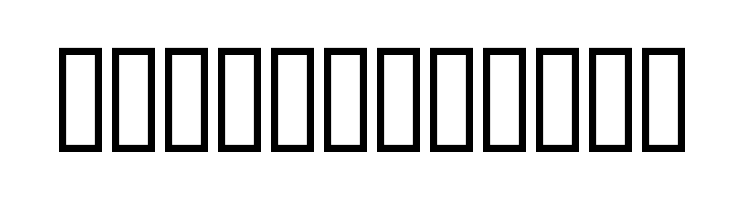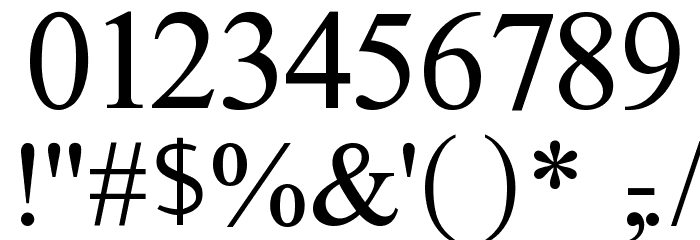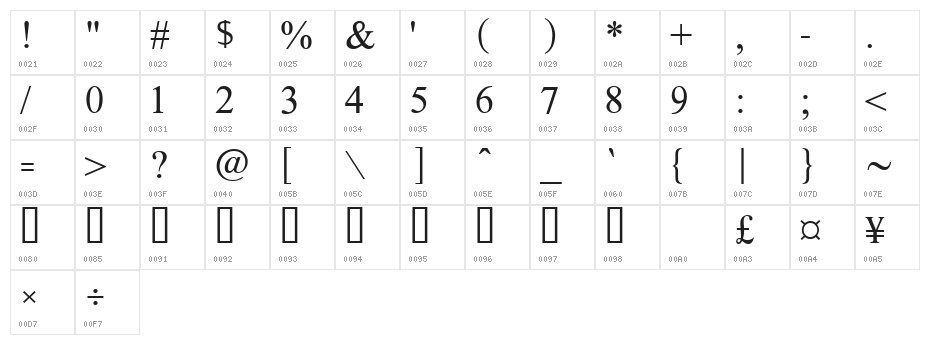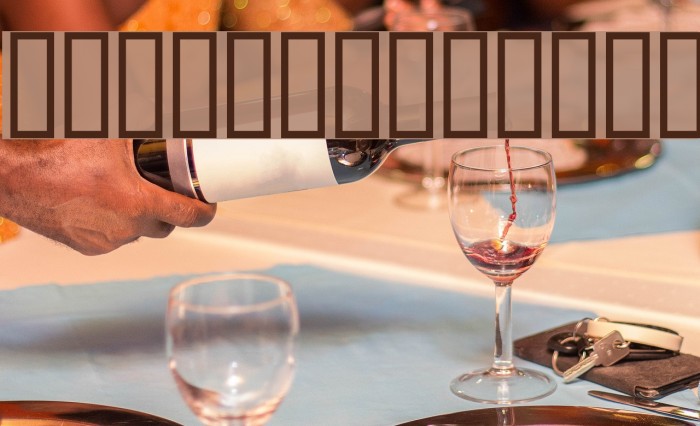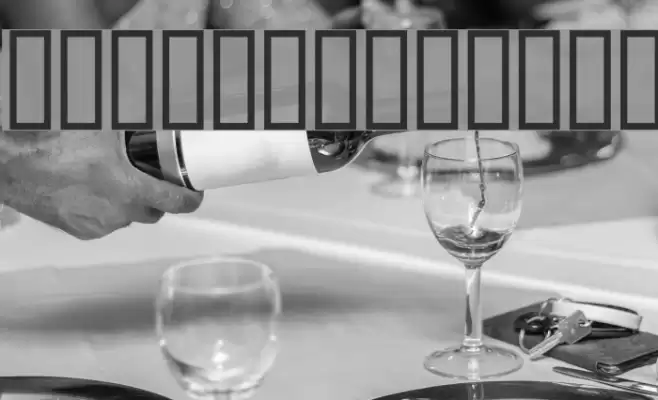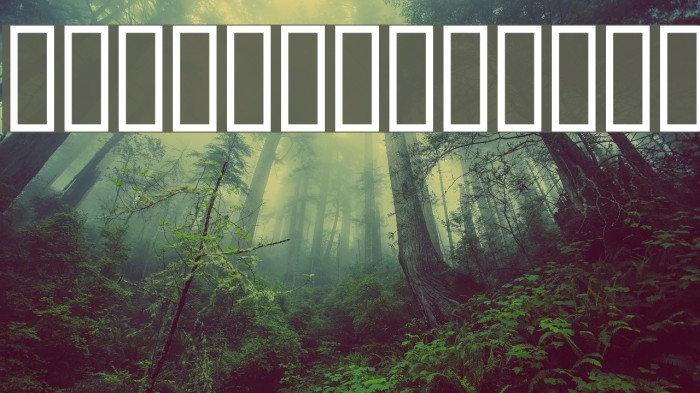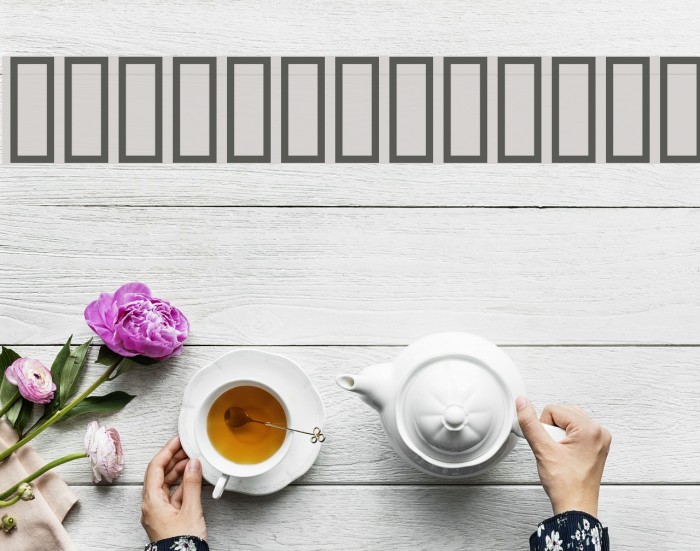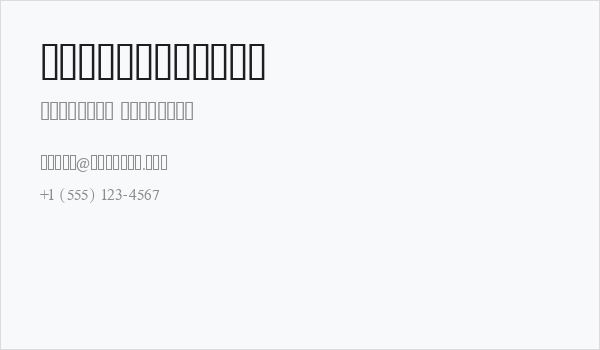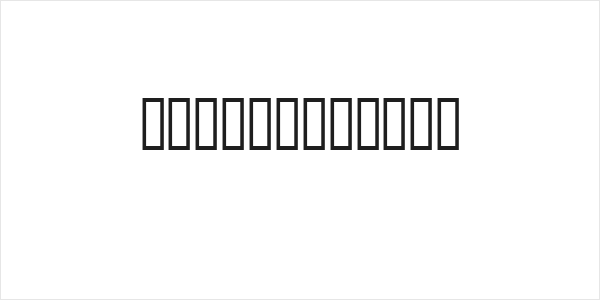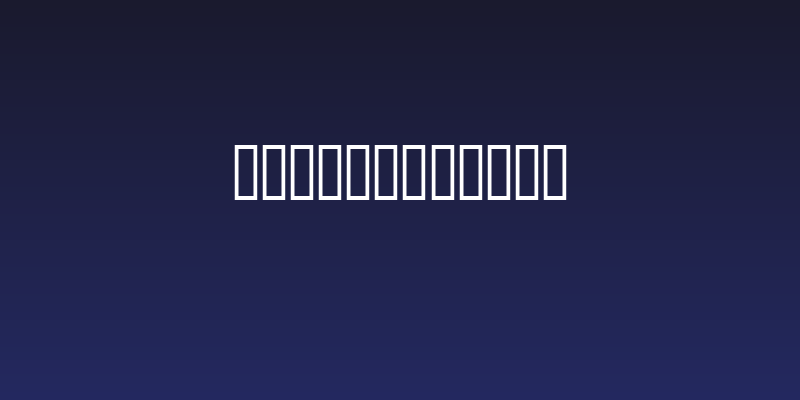
AnmolUniBani Font
AnmolUniBani Description
This font features a classic serif style with elegant and refined letterforms. The characters exhibit a traditional serif design, with distinct and sharp serifs that enhance readability. The numerals are proportionate and align well with the overall aesthetic, maintaining a consistent style throughout. The special characters are crafted with the same attention to detail, ensuring uniformity across all glyphs. This font is suitable for projects that require a touch of sophistication and timeless appeal.
| Proposed Projects | Ideal for book covers, formal invitations, editorial layouts, and branding materials that require a sophisticated touch. |